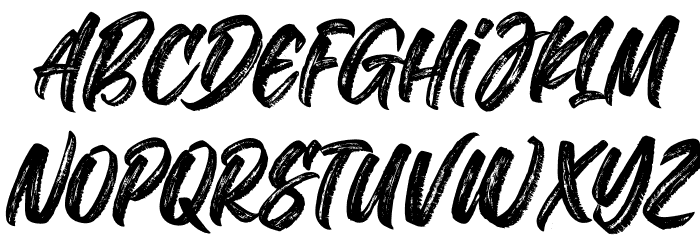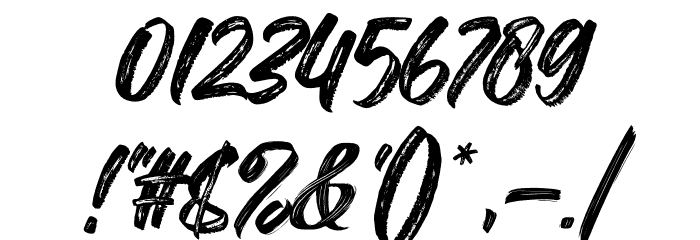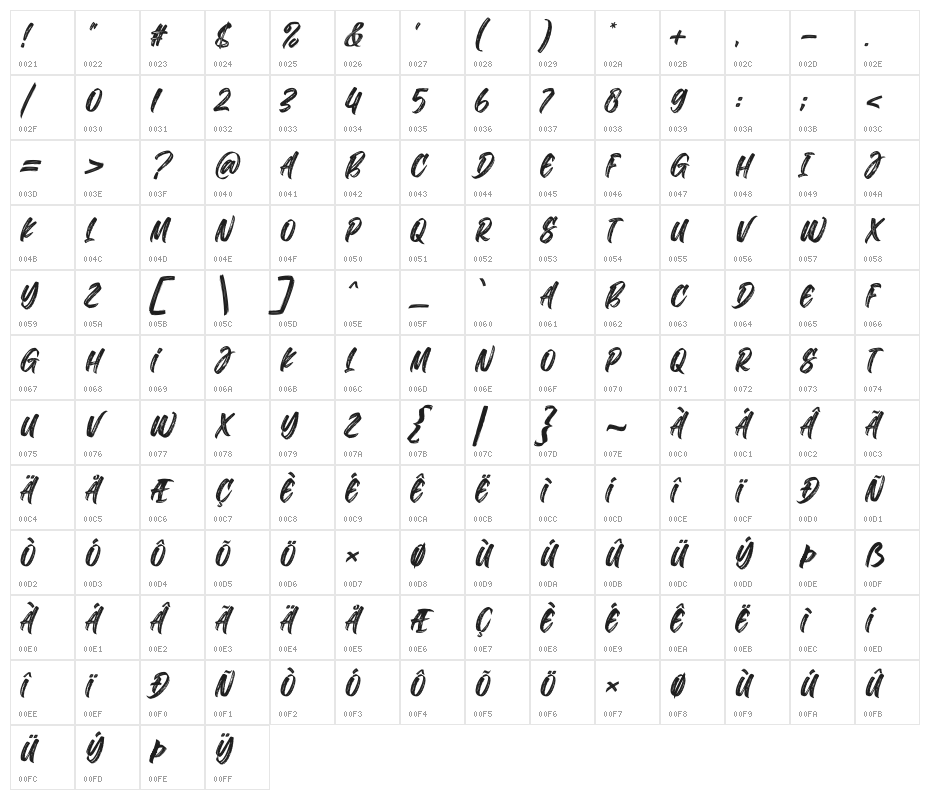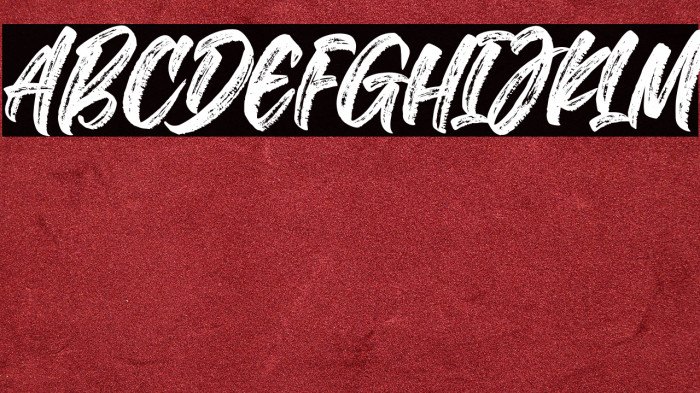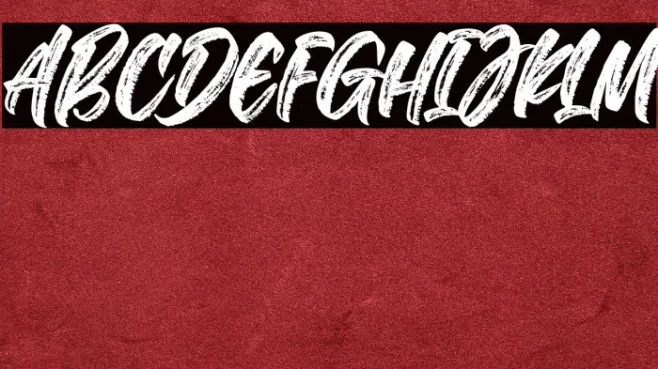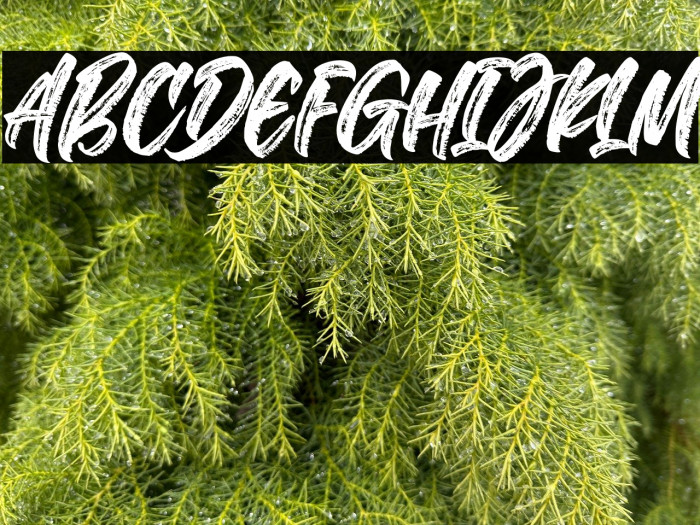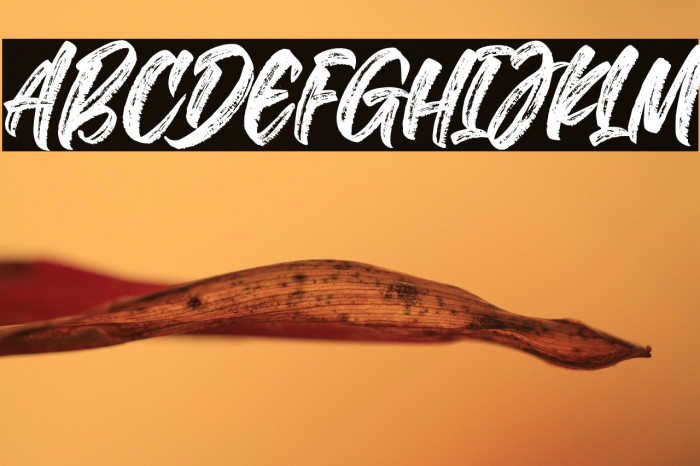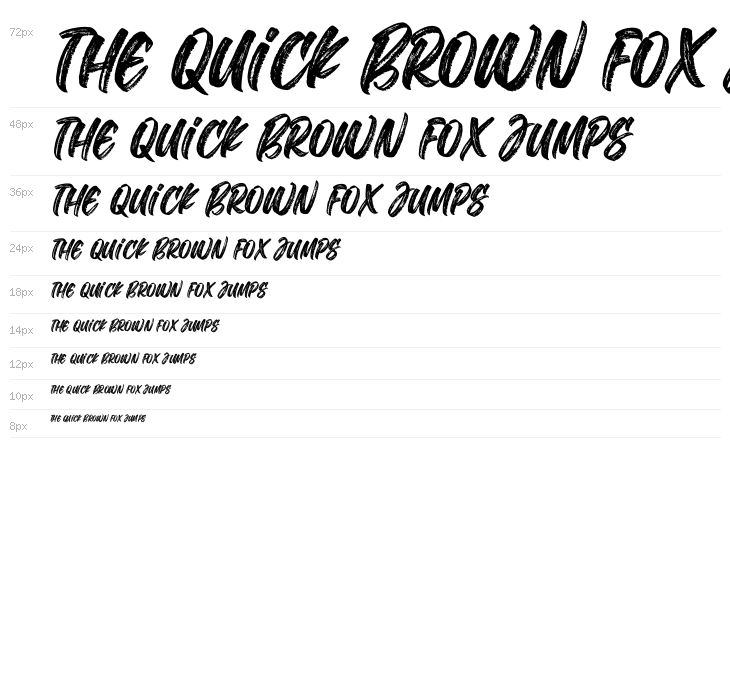
The Deliver Font
This font features a bold, expressive brush style that exudes energy and dynamism. The strokes are thick and textured, giving a hand-painted appearance that is both artistic and impactful. Each character is crafted with a sense of movement, making it ideal for designs that require a strong visual presence. The uppercase and lowercase letters maintain a consistent style, with a slightly slanted orientation that adds to the font's lively character. The numbers and special characters are equally bold, ensuring uniformity across all text elements.
A bold, textured brush font with dynamic, hand-painted strokes.
- Font: The Deliver
- Proposed Projects: Ideal for branding, posters, album covers, and any project needing a bold, artistic touch.